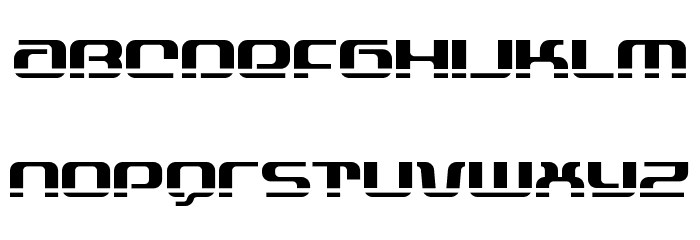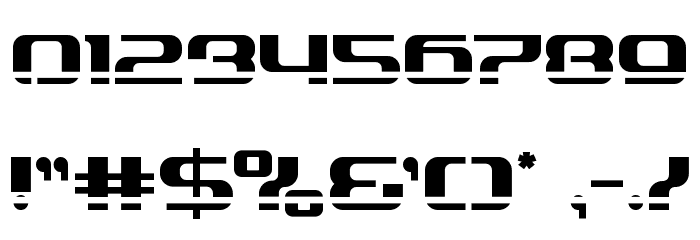
Yeoman Jack Laser 2 Font
This font features a futuristic and geometric design, characterized by its bold, segmented letterforms. Each character is constructed with a series of horizontal and vertical lines, creating a stencil-like appearance. The uppercase and lowercase letters maintain a consistent style, with sharp angles and clean edges. The numerals and special characters follow the same design principles, ensuring uniformity across the entire typeface. The overall aesthetic is modern and industrial, making it suitable for projects that require a strong, impactful visual presence.
A bold, futuristic font with geometric, segmented letterforms.
- Proposed Projects: Ideal for sci-fi themed designs, technology branding, video game titles, and futuristic posters.
- Overall Style: Modern, Futuristic